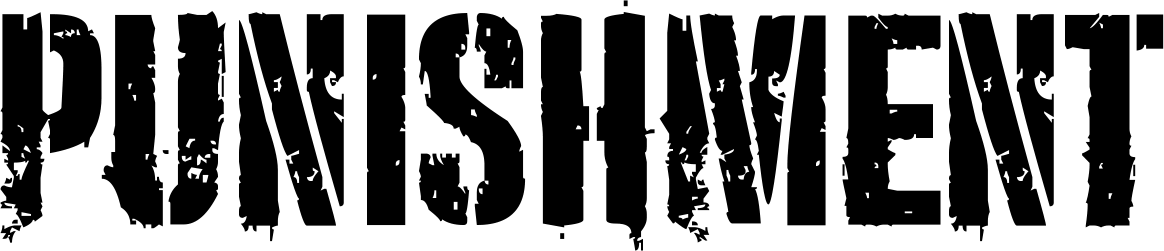
Punishment Font
Punishment font is the most popular design for scary posters due to its grunge style. This army and military font does not include lowercase letters and can be used in many flyer titles, especially in early action movies…
Punishment font is the most popular design for scary posters due to its grunge style. This army and military font does not include lowercase letters and can be used in many flyer titles, especially in early action movies. We recommend that you do not miss this font because its large characters are adequate for the title, be sure to put it in your download list.